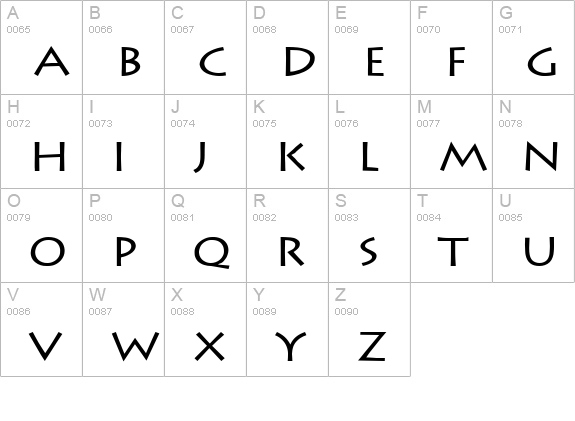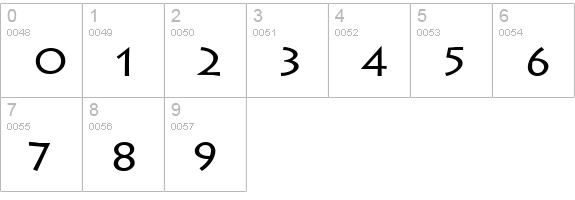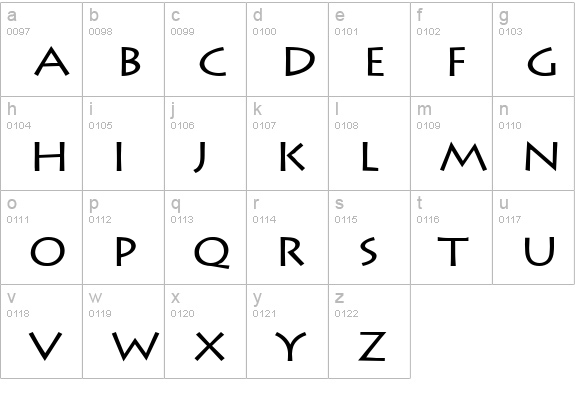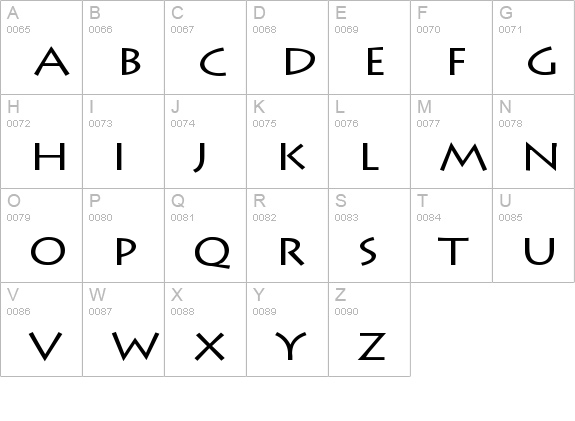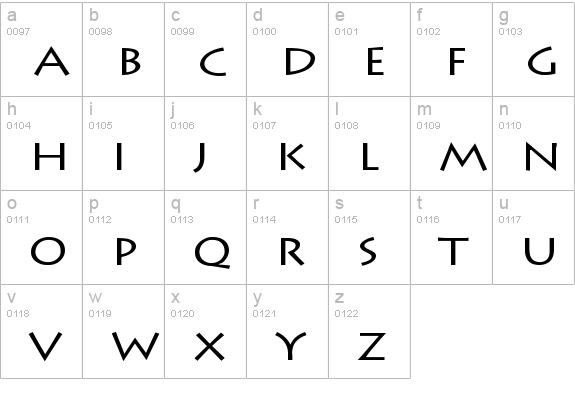
Liste Wide Normal Font Details
Liste Wide Normal is the standard, neutral, extended-width variant in the Liste typeface family \xE2\x80\x94 well suited to general body text, paragraphs, and standard typographic work.
Liste Wide Normal font is a versatile and modern typeface that beautifully combines elegance with readability. With its balanced proportions and clean lines, this font is perfect for a wide range of design projects, from branding to editorial design. The generous letter spacing and wide character width make it particularly well-suited for titles and headlines. What makes Liste Wide Normal font even more appealing is that it is available for free download at FontsMarket.com. This means that you can easily access and use this high-quality font in your projects without any cost. Whether you're a designer looking for a fresh new typeface or a business owner in need of a professional font for your branding, Liste Wide Normal font is a fantastic choice that won't break the bank. Download it today and elevate your designs with this stylish and versatile font.